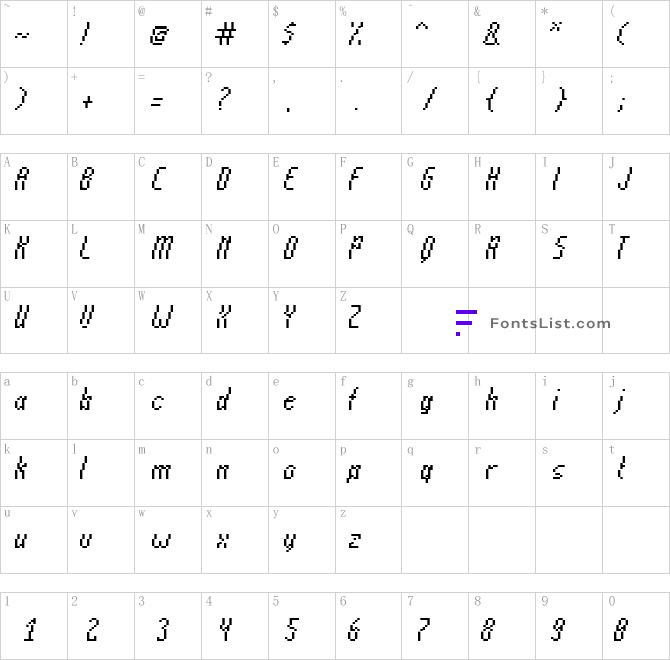
- Font Name:Annenski-Italic
Annenski-Italic.ttf is a very beautiful artistic font, Annenski-Italic.ttf is widely used in the design and printing of various books and pictures,Annenski-Italic.ttf has a strong visual impact,Annenski-Italic.ttf is a commonly used font in newspapers, magazines and books, and is used in posters, e-commerce Poster design, store design, logo design, font design and other fields.Annenski-Italic.